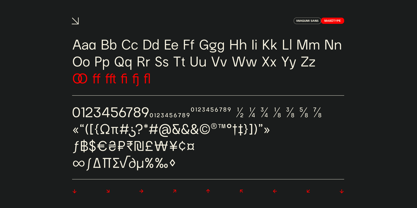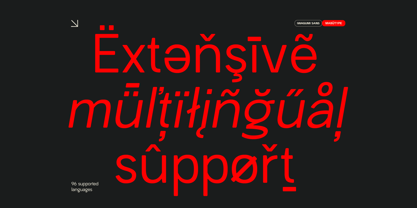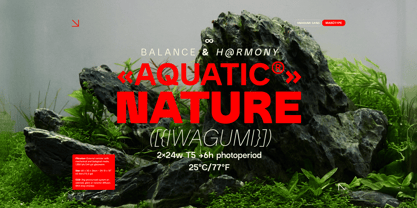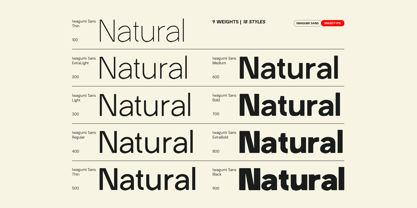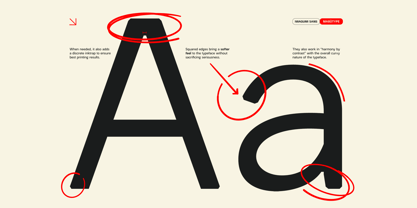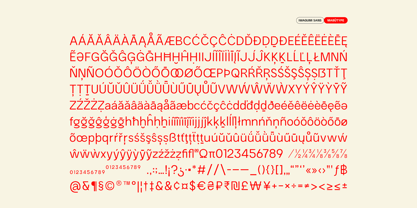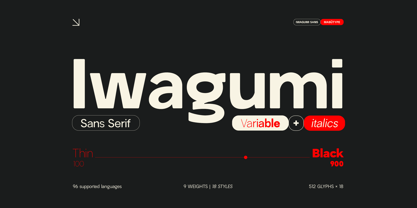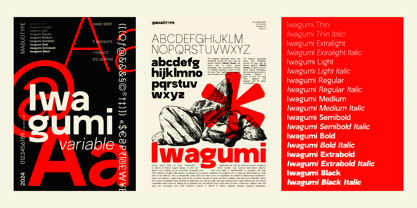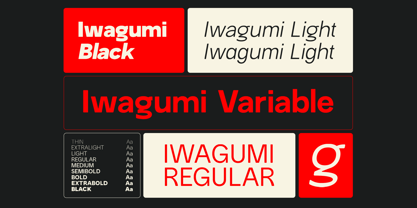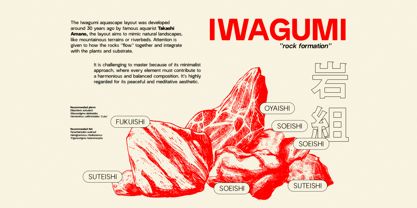
Iwagumi Sans
by Mabütype
The Iwagumi Sans Font Family was designed by Marcello Maziero and published by Mabütype. Iwagumi Sans contains 18 styles and family package options. More about this family
Iwagumi is a versatile variable typeface that features 9 weights along with matching italics, supporting 96 languages. Its design strikes a balance between technical precision and natural elegance, inspired by the harmonious structures of iwagumi aquascaped layouts. The slightly squared corners lend a friendly touch to its overall professional tone, while discrete inktraps enhance readability and refinement. By blending influences from neo-grotesk, geometric, and modern typography styles, Iwagumi achieves a perfect balance between clarity and character. Its meticulous details and extensive linguistic support make it ideal for branding, editorial work, and digital interfaces, ensuring adaptability across diverse applications. Designed to convey professionalism with a humanized edge, Iwagumi is both innovative and timeless—perfect for projects that seek a seamless fusion of functionality and aesthetic appeal.
Designers: Marcello Maziero
Foundry: Mabütype